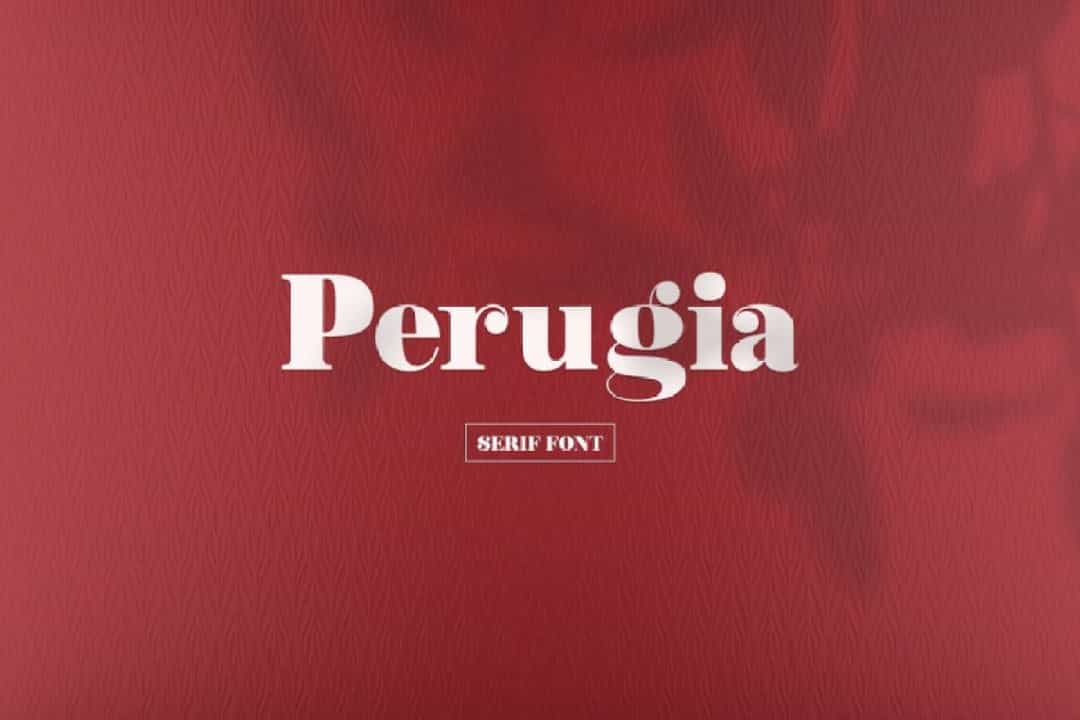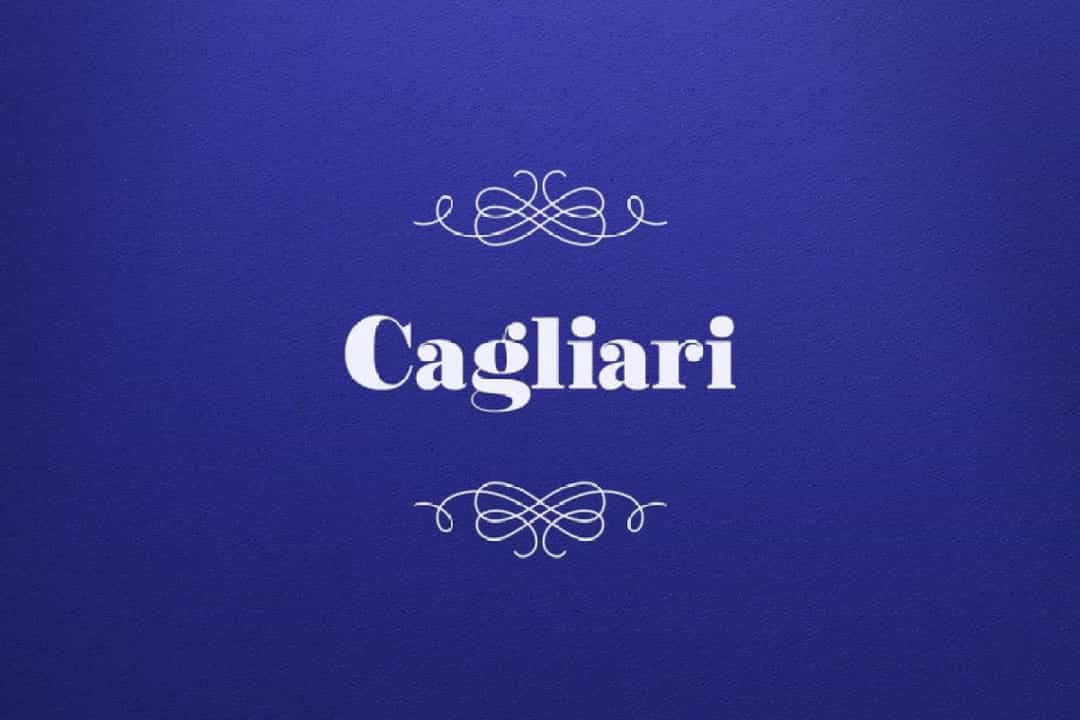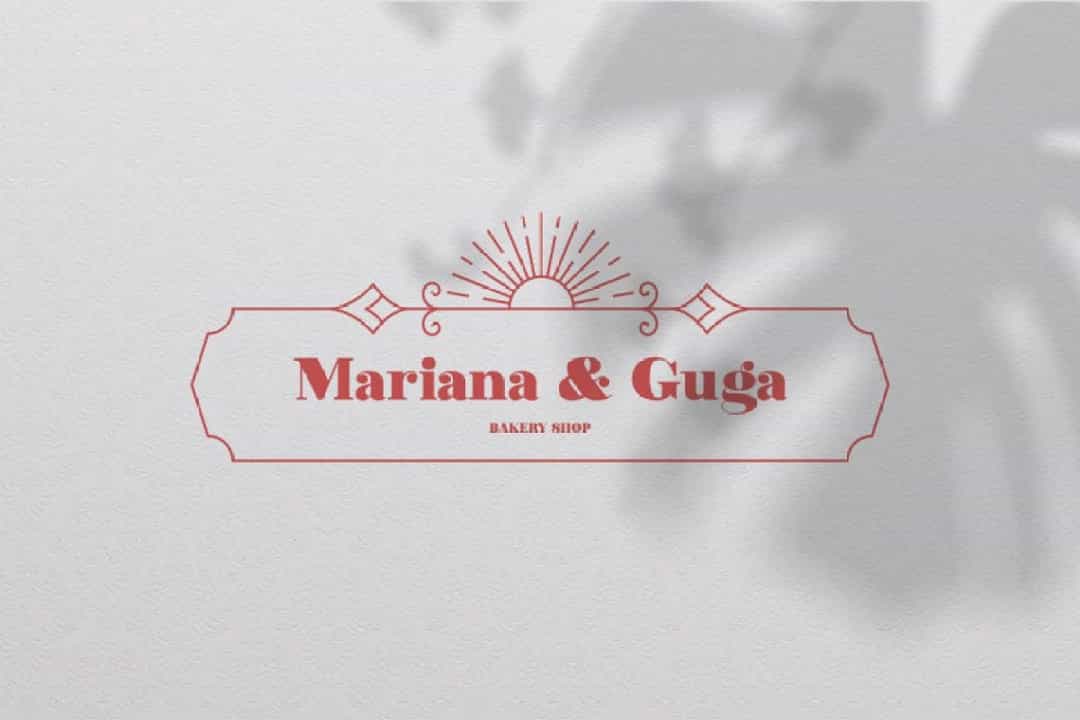
Perugia is an elegant serif typeface with an unmistakably modern appearance, offering crisp lettering designs. Perfect for logos, editorial design branding posters magazines social media as well as quotes or designs for procreate – Perugia stands out in formal and informal designs alike! This font can also make an unforgettable statement!